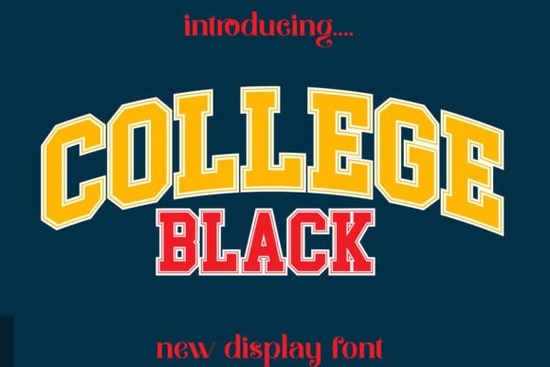
College Black Font is a bold, modern display typeface built for projects that need to make an immediate impact. Whether you're designing a sports jersey, a movie poster, or a team logo, this font delivers the kind of strong, athletic presence that catches eyes and holds attention. It falls squarely in the display font category, meaning it works best at larger sizes where its thick letterforms and sharp details can really stand out.
If you've been searching for a typeface that feels powerful without being overly complicated, this one deserves a close look. Below, we'll break down what makes it useful, where it fits best, and how it compares to other display fonts worth considering.
What Makes College Black Font Stand Out?
The first thing you'll notice is the weight and presence of each character. This isn't a subtle, quiet typeface. It's designed to command space on a page or screen. The letterforms are clean and structured, with consistent stroke widths that give it a polished, professional feel.
Here's what sets it apart from other bold display options:
- Thick, uniform strokes that read well even at a distance
- Clean geometry that avoids unnecessary flourishes
- Versatile character set that supports a range of design contexts
- Modern aesthetic that works for both print and digital projects
Compared to a more ornate option like De Augusta, which leans into decorative elegance, College Black keeps things straightforward and athletic. That simplicity is actually its strength it adapts to different design styles without clashing.
What Projects Is This Font Best For?
This typeface was practically made for sports and entertainment design. Think team branding, league logos, jersey numbers, and event posters. But its usefulness doesn't stop there.
Here's a broader list of project types where it works well:
- Sports team logos and branding jerseys, caps, banners
- Movie and film titles documentary posters, indie film covers
- Book covers especially action, thriller, or non-fiction genres
- Game design title screens, box art, in-game UI headers
- Print-on-demand products t-shirts, mugs, stickers with bold text
- Social media graphics YouTube thumbnails, Instagram stories
- Event posters and flyers tournaments, fundraisers, screenings
If you sell designs on platforms like Merch by Amazon, Redbubble, or Etsy, a font like this can be a real workhorse for your shop. Bold text-based designs continue to sell well, and having a reliable athletic-style typeface in your toolkit saves time on every new project.
How Does It Compare to Other Display Fonts?
Choosing the right display font depends heavily on the mood you're going for. College Black sits in a specific lane bold, sporty, and no-nonsense. Here's how it stacks up against a few other popular options on Creative Fabrica:
- Magic Unicorn takes a playful, whimsical approach with its letter shapes perfect for kids' designs or fantasy-themed projects. Totally different energy from College Black.
- Lemon brings a fresh, rounded style that suits casual branding, food packaging, or summer-themed graphics.
- Summer Chunky also uses thick strokes but with a more relaxed, fun personality. It's great for beach vibes and laid-back designs.
Each of these fonts serves a different creative need. The key is matching the typeface to the tone of your project. If you need something that feels strong, competitive, and authoritative, College Black is the clear pick from this group.
Is It a Good Fit for Print-on-Demand Sellers?
Absolutely. If you run a POD business, you already know that bold, readable typography sells. Customers browsing for t-shirts or hoodies respond to designs where the text is instantly legible and feels intentional. College Black checks both of those boxes.
A few practical tips for using it in your POD workflow:
- Pair it with simple graphics a bold font plus a clean icon is often more effective than an overloaded design
- Test it at multiple sizes make sure it looks good on both small stickers and large posters
- Use it for niche-specific designs sports teams, fitness brands, and school events are proven categories
- Check licensing always confirm that your Creative Fabrica subscription covers commercial use for the products you're creating
Design Pairing Ideas
A strong display font like this works best when paired thoughtfully. Consider combining it with a clean sans-serif for body text, or layering it with subtle textures for a vintage sports look. You can also explore other bold typefaces available on College Black Font at Creative Fabrica for more inspiration and pairing options.
For variety, keep a few different display fonts in rotation so your designs don't all look the same. A font like College Black handles the athletic, powerful side of things, while something softer handles the rest.